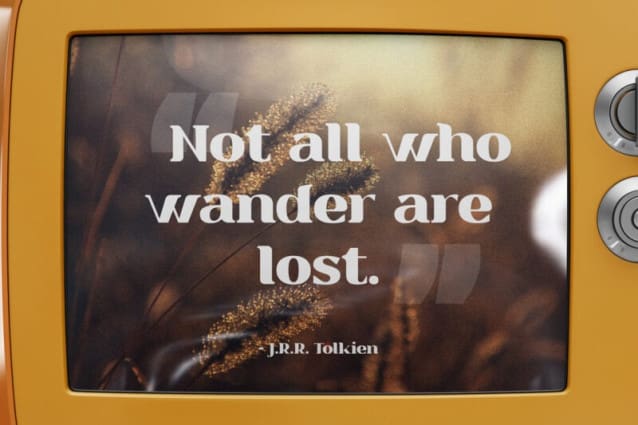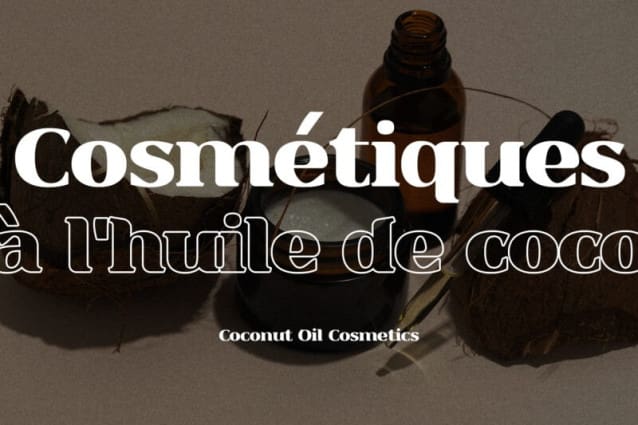
Abhiarga Font
Abhiarga Font is an elegant display serif font that seamlessly blends sophistication with a touch of modernity. Its gracefully crafted letterforms exude a timeless charm, characterized by subtly flared serifs and well-balanced proportions. The typeface strikes a harmonious balance between traditional serif elements and contemporary design trends, making it versatile for various applications. Abhiarga’s intricate details lend a sense of refinement, making it ideal for titles, headlines, and other prominent display settings where a touch of classical sophistication is desired. The font’s intricate strokes and intricate serifs contribute to a distinctive aesthetic, ensuring that Abhiarga Font stands out with a dignified presence while maintaining readability and visual appeal.